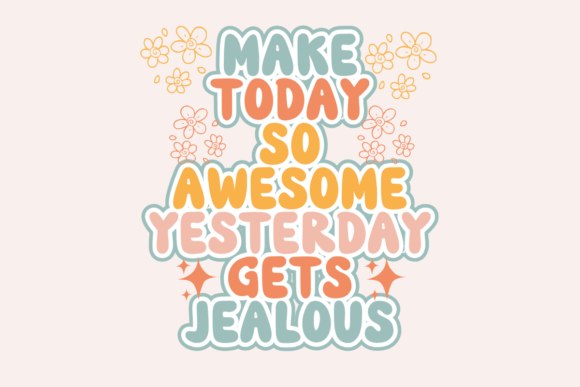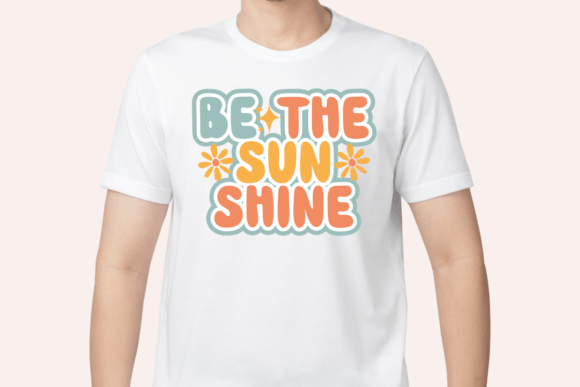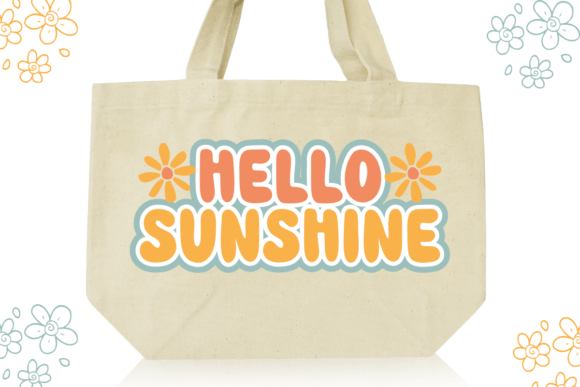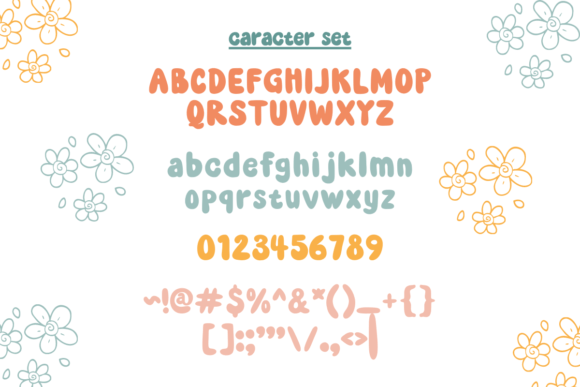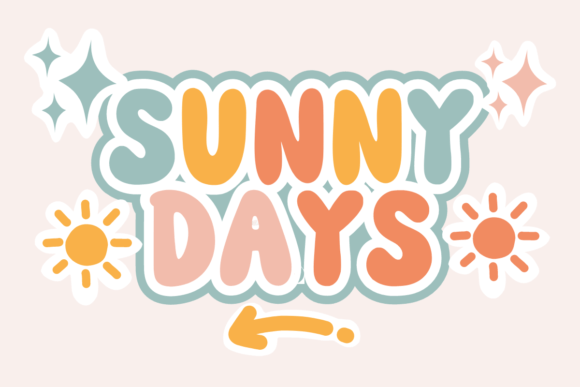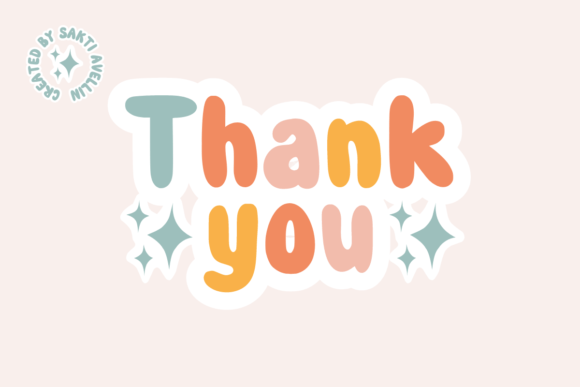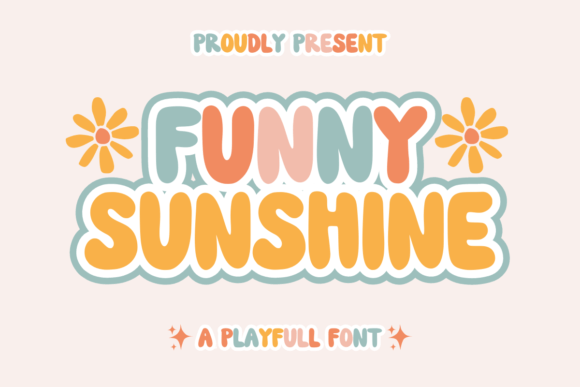
Brighten Up Your Designs with Funny Sunshine Font
Are you tired of using the same old fonts in your designs? Do you want to add a playful and cheery touch to your projects? Look no further than the Funny Sunshine font! This delightful font is perfect for designers and crafters who want to create fun and eye-catching designs that are sure to bring a smile to people’s faces.
What is Funny Sunshine Font?
Funny Sunshine is a playful and cute font that’s designed to add a sunny touch to your designs. Its cheerful and upbeat style makes it perfect for a wide range of projects, from book covers and posters to packaging and merchandise. With its unique and quirky characters, Funny Sunshine is sure to make your designs stand out from the crowd.
What Makes Funny Sunshine Font So Special?
So, what makes Funny Sunshine font so special? Here are just a few reasons why designers and crafters love this font:
• Playful and Cheery: Funny Sunshine font is designed to be playful and cheery, making it perfect for designs that need a fun and upbeat touch.
• Versatile: This font is suitable for a wide range of projects, including book covers, posters, packaging, merchandise, logotypes, and more.
• Book Covers: Add a playful touch to your book covers with Funny Sunshine font. It’s perfect for children’s books, romance novels, and more.
• Posters: Create eye-catching posters with Funny Sunshine font. It’s great for advertising, events, and promotions.
• Packaging: Add a cheery touch to your packaging with Funny Sunshine font. It’s perfect for food labels, product packaging, and more.
• Merchandise: Create fun and playful merchandise with Funny Sunshine font. It’s great for t-shirts, mugs, and more.
Why Designers and Crafters Love Funny Sunshine Font
Designers and crafters love Funny Sunshine font for a variety of reasons. Here are just a few:
• Unique and Quirky: Funny Sunshine font is unique and quirky, making it perfect for designers and crafters who want to create designs that stand out.
• Versatile: Funny Sunshine font is suitable for a wide range of projects, making it a great addition to any design library.